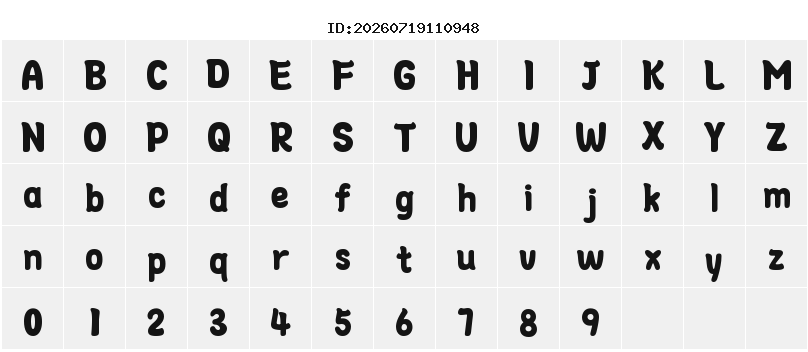
也字工厂猫耳朵体 Preview
• Font Name: 也字工厂猫耳朵体
• Full Font Name: 也字工厂猫耳朵体
About 也字工厂猫耳朵体.ttf
也字工厂猫耳朵体.ttf is a modern, elegant sans-serif font designed for ultimate readability and visual harmony. Perfect for branding, headlines, web design, and print materials.